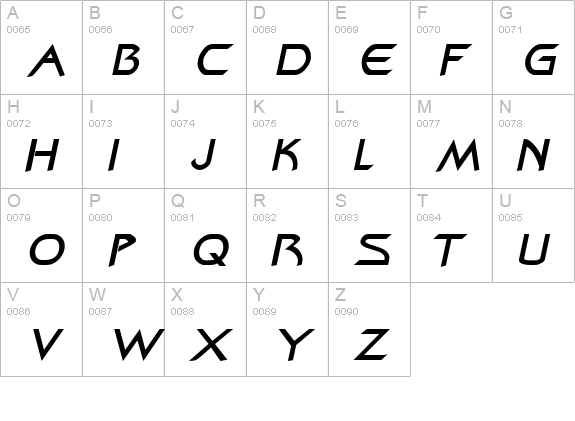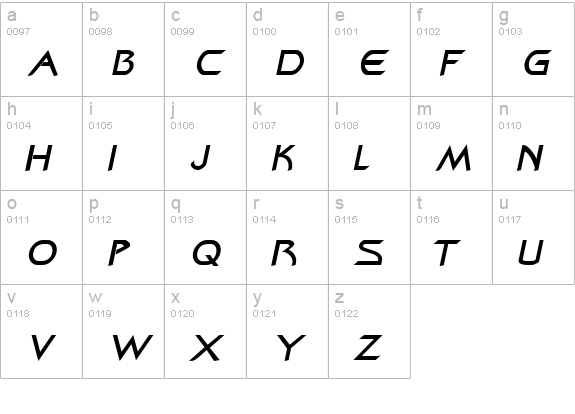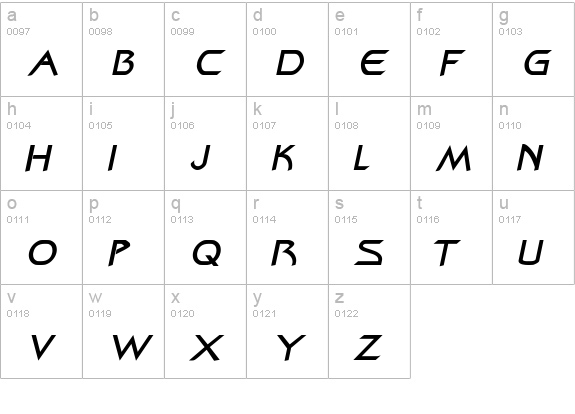
Zenon Italic is a distinctive, italic variant in the Zenon typeface family \xE2\x80\x94 well suited to design and typography projects.
Zenon Italic font is a stylish and modern typeface that exudes elegance and sophistication. Its sleek and slanted design gives off a sense of movement and fluidity, making it perfect for adding a touch of flair to any project. The delicate curves and graceful lines of Zenon Italic create a sense of balance and harmony, making it a versatile choice for both headings and body text. This beautiful font is not only visually appealing, but also incredibly easy to read, making it ideal for a wide range of design projects. Whether you're working on a website, a brochure, or a branding project, Zenon Italic will add a touch of class and sophistication to your work. Best of all, Zenon Italic is available for free download at FontsMarket.com. This means you can easily access this stunning font and start using it in your projects right away. Don't miss out on the opportunity to enhance your designs with the timeless beauty of Zenon Italic font. Download it today and see the difference it can make!